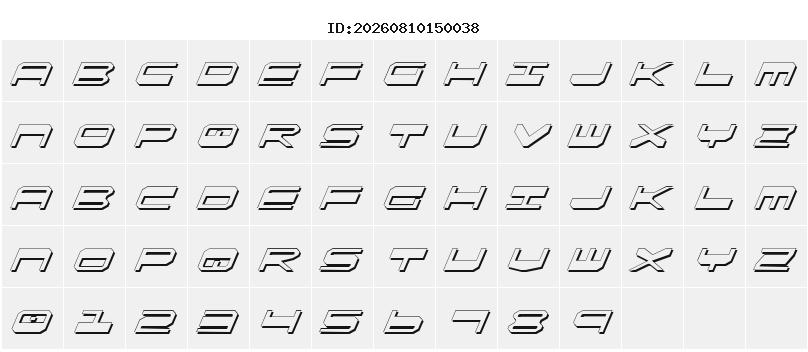
QuickGear Shadow Italic Preview
• Font Name: QuickGear Shadow Italic
• Font Style: Shadow Italic
• Full Font Name: QuickGear Shadow Italic
• Designer: Dan Zadorozny
About QuickGear Shadow Italic.ttf
QuickGear Shadow Italic.ttf is a modern, elegant sans-serif font designed for ultimate readability and visual harmony. Perfect for branding, headlines, web design, and print materials.